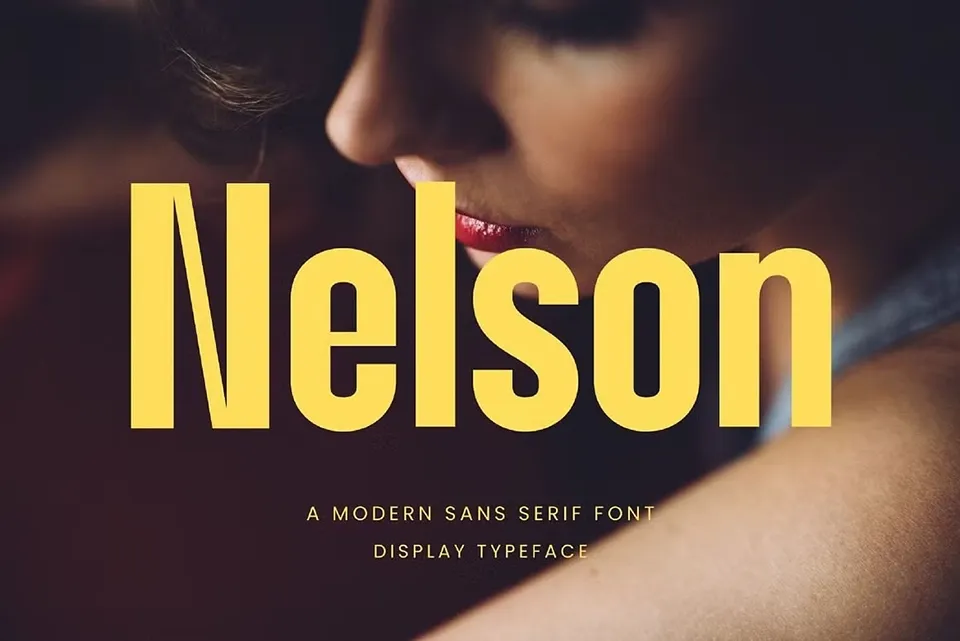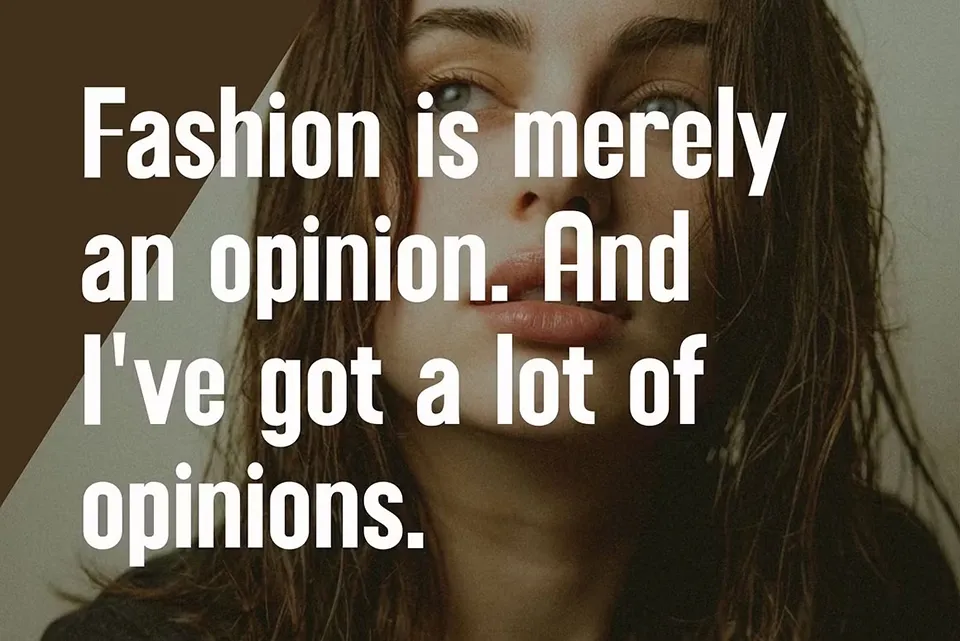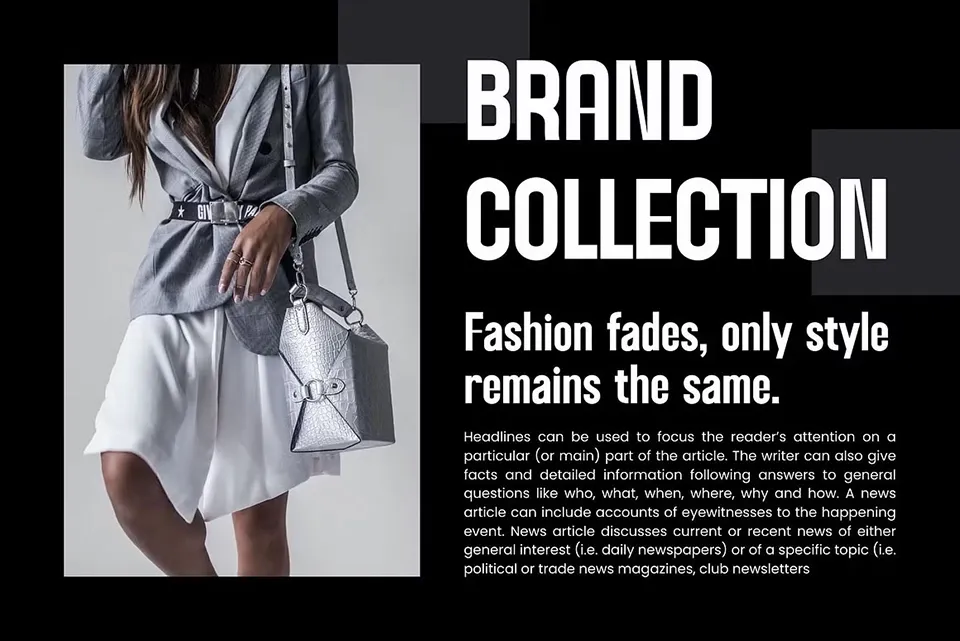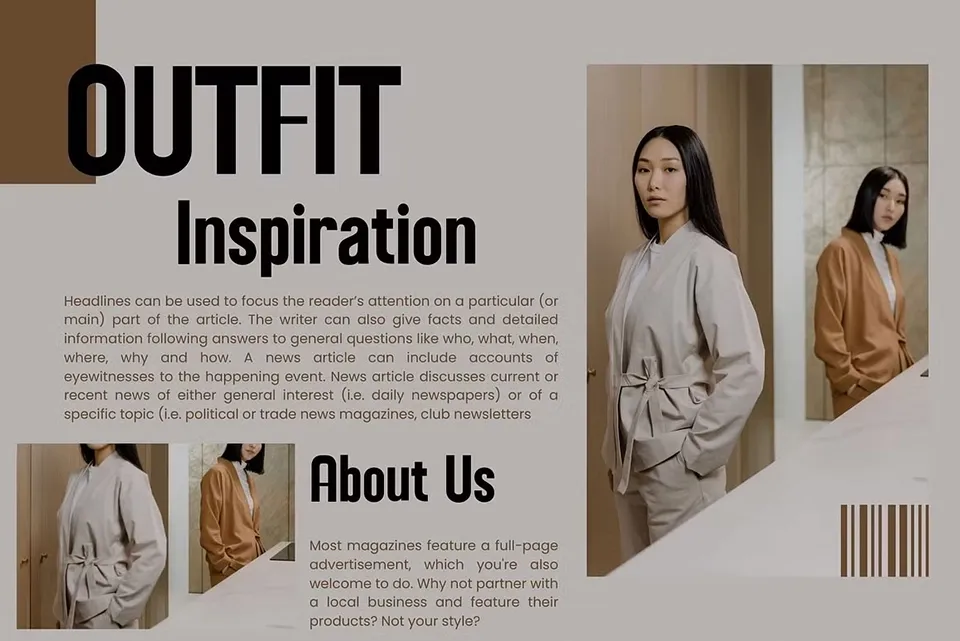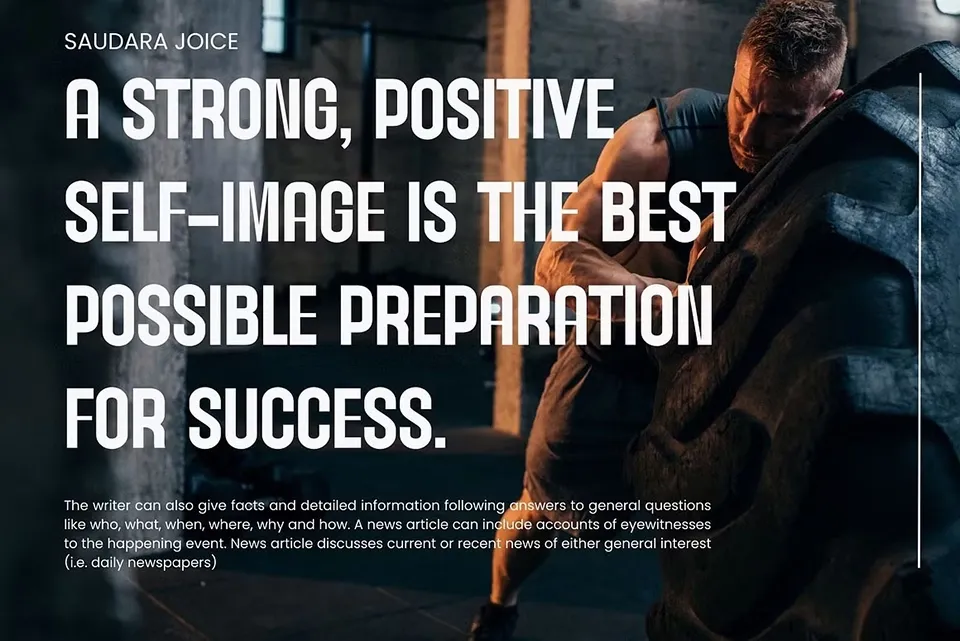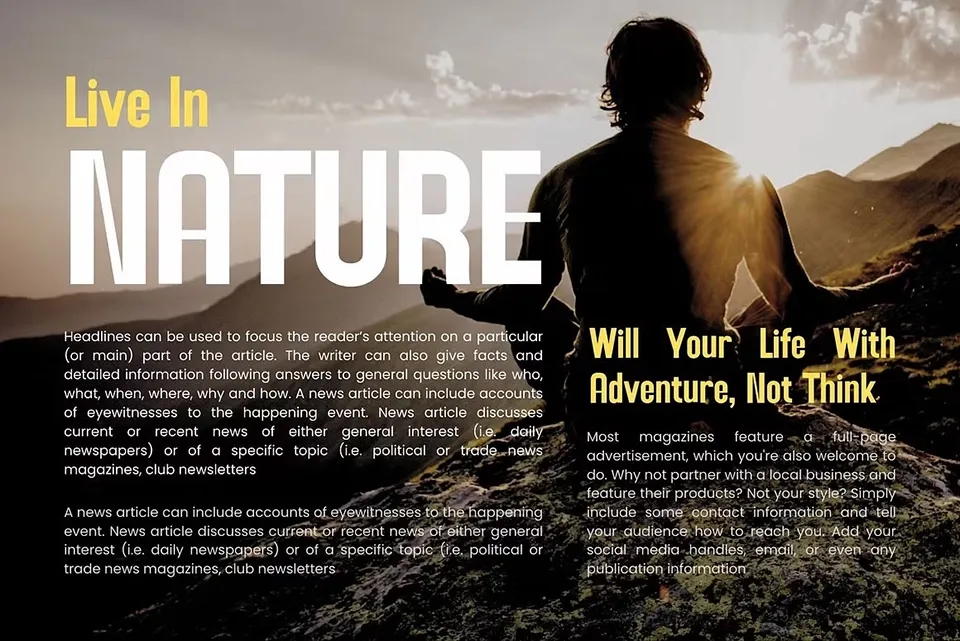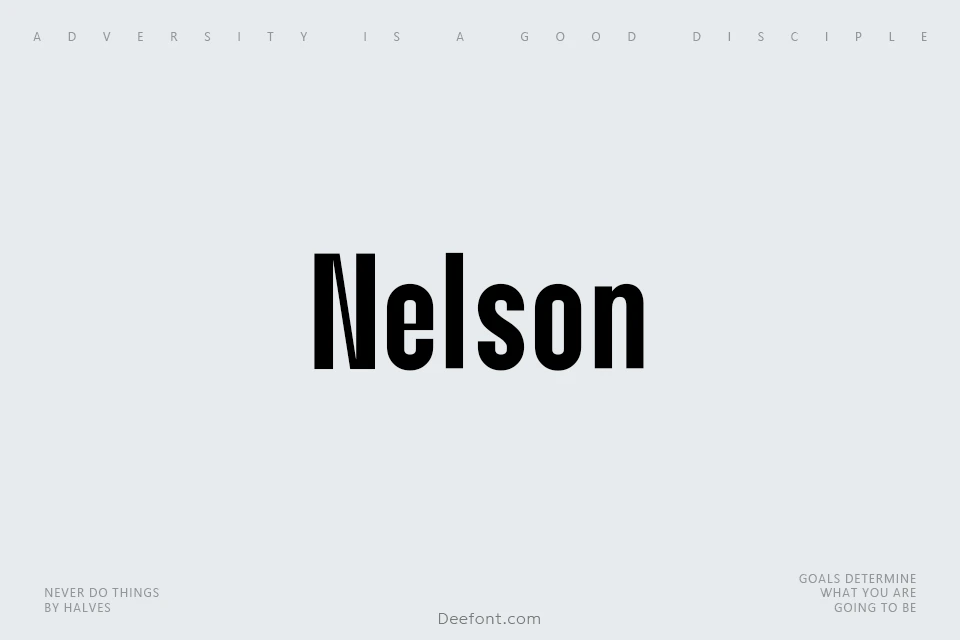
Nelson Font
Nelson Modern Sans Serif Font is a refined and contemporary typeface that seamlessly blends modern aesthetics with geometric precision. This bold, blocky display sans-serif typeface is inspired by famous minimalist logos and delivers a professional, polished look perfect for corporate branding, editorial layouts, and marketing materials. The font features clean lines and a balanced structure, making it an ideal choice for designing templates, brochures, videos, advertising branding, logos, invitation layouts, elegant crafting, and beauty design projects. Nelson maintains clarity and style across multiple platforms, from website headers to editorial compositions, ensuring every word stands out with precision and impact. Its well-proportioned letterforms enhance readability, making it perfect for both print and digital applications, while its structured yet approachable form conveys professionalism and creativity.